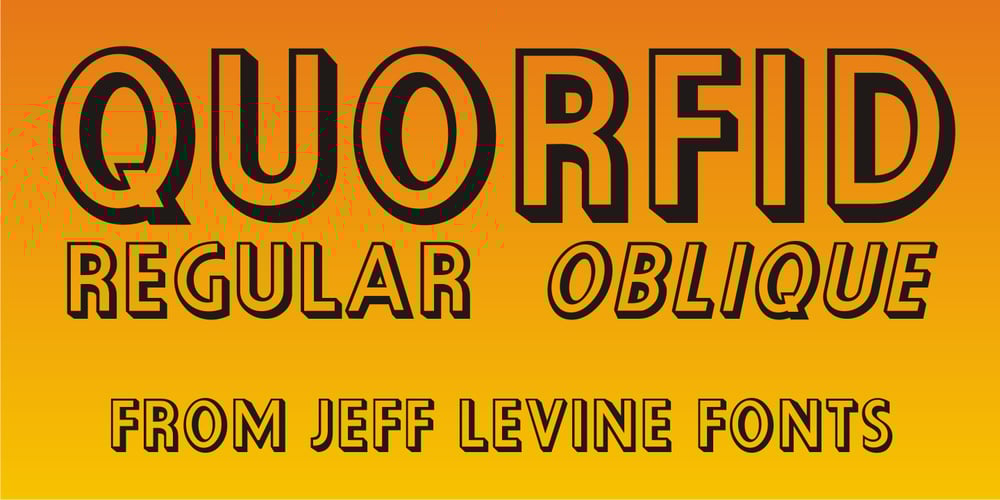
Quorfid JNL Font Family was designed by Jeff Levine and published by Jeff Levine. Quorfid JNL contains 2 styles and family package options. Quorfid JNL is Jeff Levine’s version of an old classic- Orplid. Especially popular in the 1950s, this cast shadow outline font has a decidedly hand-made look to it. From headlines to point-of-sale signage, it fits into all applications.